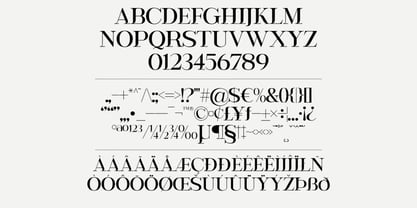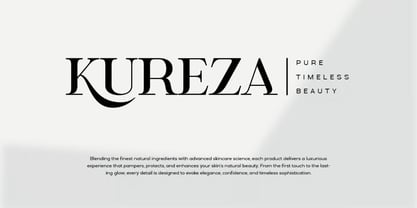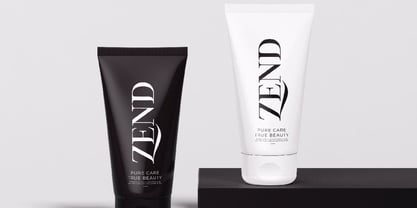
Foogzy
by Hasnat Studio
The Foogzy Font Family was designed by Hasnat Khan and published by Hasnat Studio. Foogzy contains 1 styles. More about this family
Foogzy is a stylish and elegant display font, meticulously crafted with refined details and graceful curves. Its luxurious letterforms and sophisticated alternates make it the ideal choice for high-end branding, fashion editorials, luxury packaging, magazine layouts, and elegant invitations. With a modern yet timeless aesthetic, Foogzy strikes a perfect balance between minimal beauty and refined craftsmanship, adding a sense of class and exclusivity to any creative project. Each curve and stroke is designed to convey confidence, style, and polish — making it perfect for designers who wish to leave a bold, refined impression. ✦ Font Features - All Caps Letters - Numbers & Punctuation - Stylistic Alternates & Ligatures - PUA Encoded for Easy Access - Multilingual Support ✦ Perfect For - Luxury Branding - Fashion Logos & Editorials - Product Packaging - Wedding Invitations - High-End Advertising - Magazine Headlines Foogzy is an exclusive, elegant font that embodies style, sophistication, and modern luxury — making it the perfect choice for designers seeking a refined and timeless look.